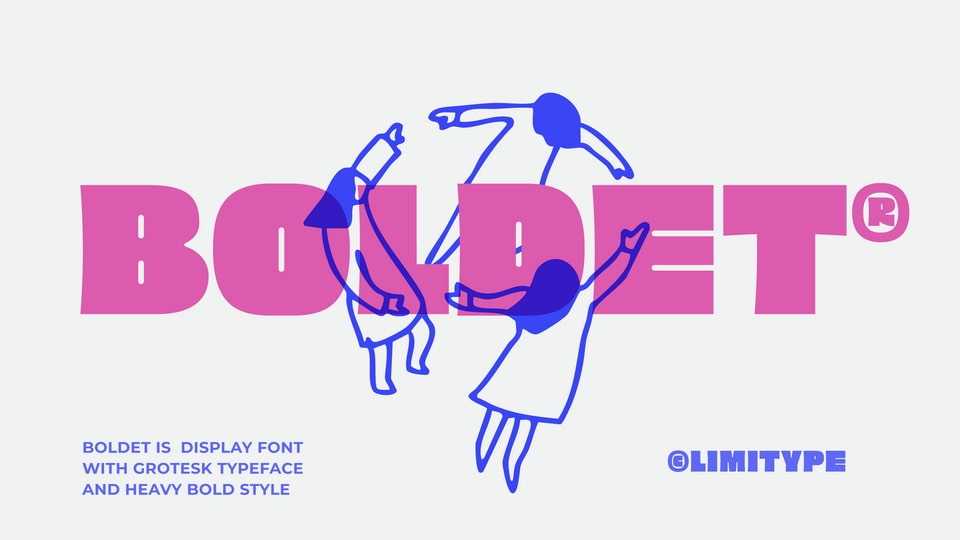
Download Boldet font, a typeface that comes in a grotesk style that is bold, solid, and full of character, bringing out an expressive blend of retro and modern vibes.